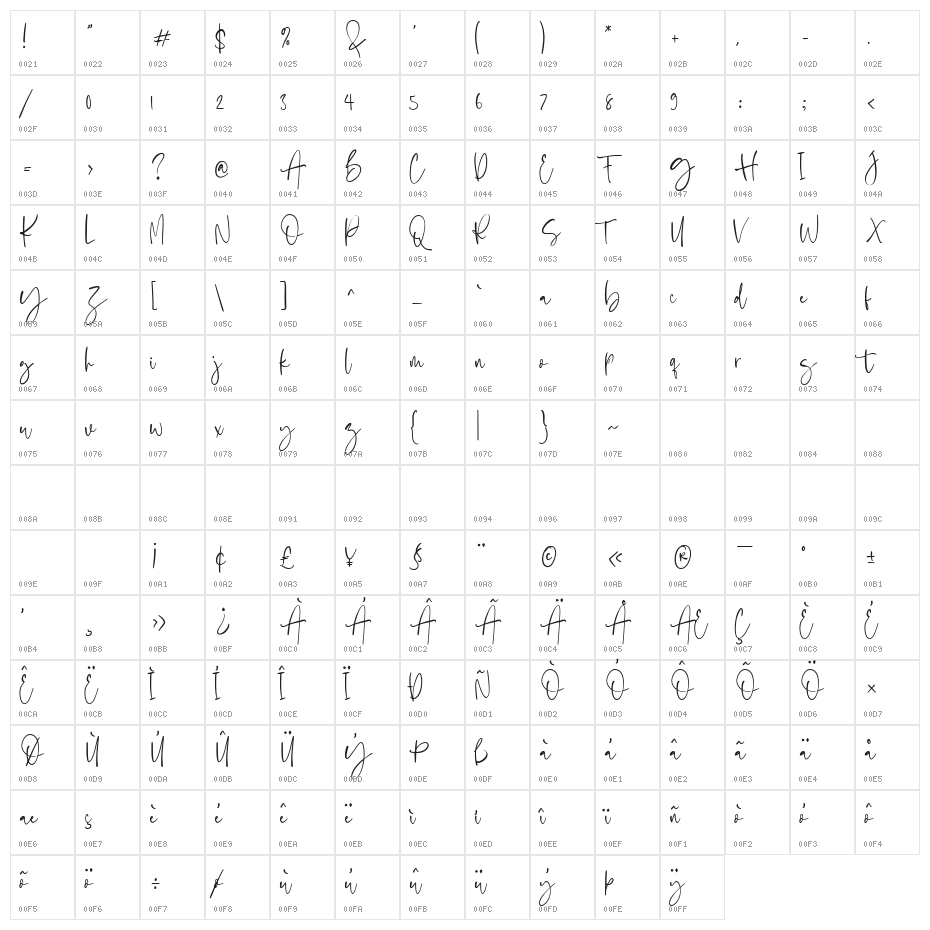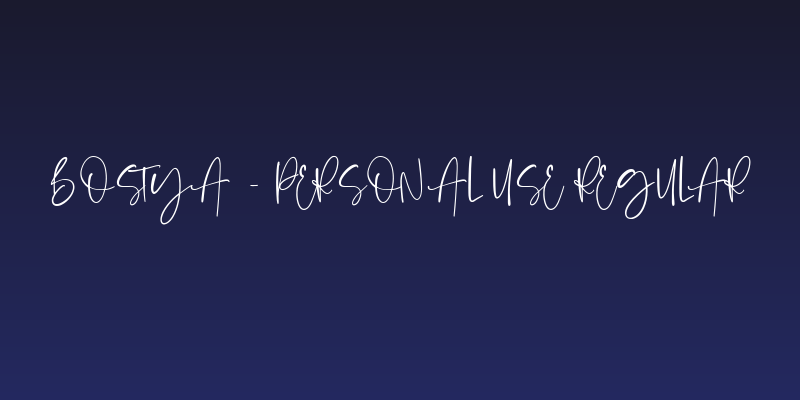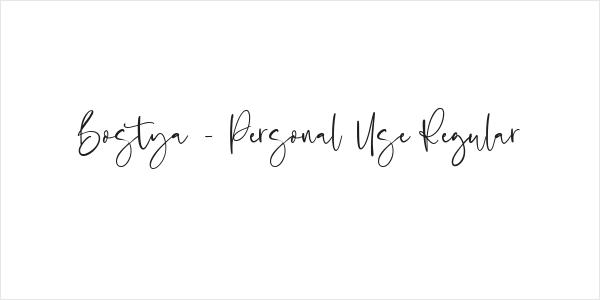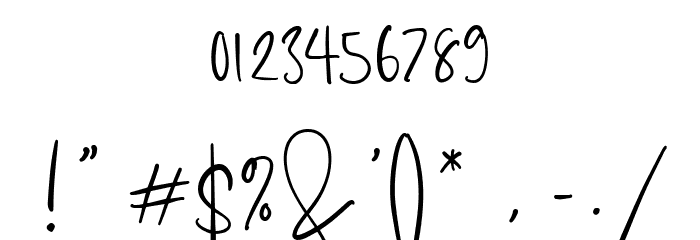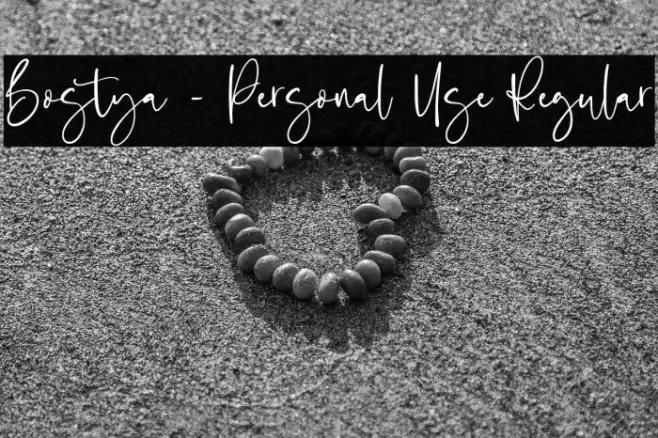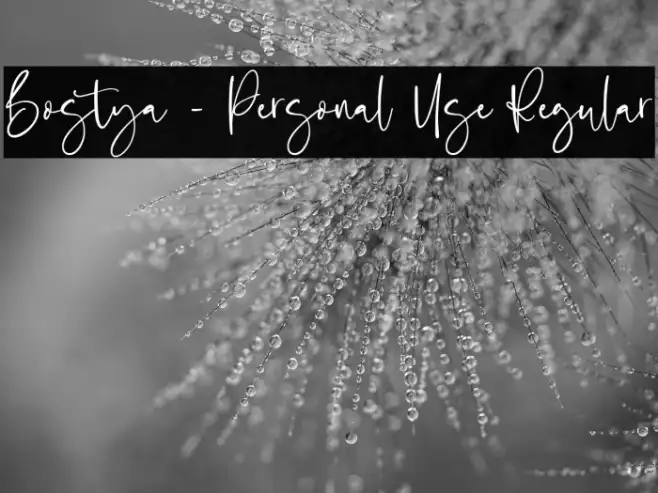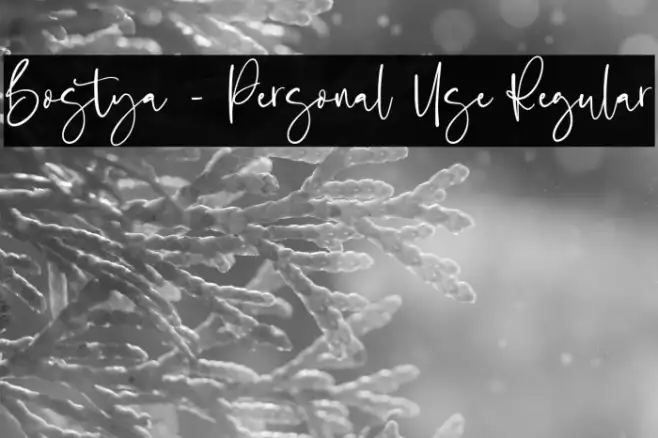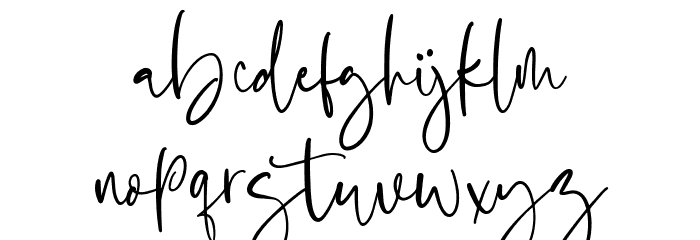
Bostya - Personal Use Regular Font
Bostya - Personal Use Regular Description
This font features a lively and expressive handwritten style, characterized by its fluid and dynamic strokes. The uppercase letters are bold and sweeping, with a playful yet elegant flair, while the lowercase letters maintain a consistent flow that complements the overall aesthetic. The numerals are distinct and maintain the same handwritten quality, ensuring readability. Special characters are creatively integrated, adding to the font's versatility. This font's unique personality makes it suitable for a variety of creative projects, offering a personal touch that stands out.